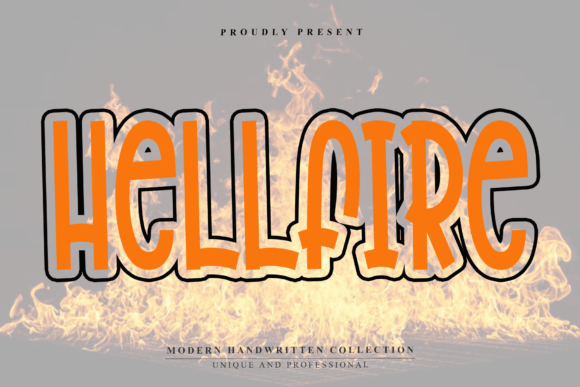
Hellfire: A Warm Font for Business Branding
Running a small business means paying attention to every detail that shapes how customers see your brand. For me, it started with a simple problem—my bakery’s packaging felt a little flat. The fonts I was using were too generic, and I wanted something that felt more personal, more like the warm, welcoming vibe we try to create in our shop. That’s when I discovered Hellfire.
Hellfire is a casual handwritten display font that radiates warmth and personality. Featuring smooth strokes, natural curves, and easy-flowing letterforms, it captures the charm of authentic handwriting. It’s not just a font—it’s a way to make your brand feel more human, more approachable, and more memorable.
Hellfire for Bakery Packaging and Product Labels
As a baker, I knew that first impressions matter. When someone opens a box or picks up a product, the typography on the packaging is one of the first things they notice. Hellfire transformed my bakery boxes. Instead of a stiff, impersonal look, I now have a font that feels like a friendly note from the owner. It adds character to my product labels, making them stand out on the shelf and giving customers a sense of what to expect from my brand.
Using Hellfire for product labels also helped me keep my branding consistent. Whether it’s a custom cookie tin or a seasonal treat, the same font appears across all my materials, creating a cohesive visual identity that customers recognize instantly.
Hellfire for Social Media Graphics and Online Shop Displays
As an online seller, I know how important it is to make my shop visually appealing. Hellfire has become my go-to font for social media graphics, especially for Instagram posts and promotional banners. Its flowing style makes headlines pop, while still maintaining a soft, inviting feel that matches my brand’s tone.
I also use Hellfire for my website banners and digital ads. It adds a personal touch without being overwhelming. On mobile screens, where space is limited, Hellfire still reads clearly and maintains its charm, which is essential for attracting attention in a fast-paced digital world.
Hellfire for Café Menus and Service Branding
When I redesigned my café’s menu, I wanted something that felt as comforting as the coffee we serve. Hellfire fit perfectly. It gives the menu a handcrafted feel that aligns with the cozy atmosphere of the café. The font works well for headings, but I also use it for smaller text like descriptions and pricing, ensuring readability without sacrificing style.
Hellfire isn’t just for big headlines. It adds a subtle yet meaningful touch to service branding, such as signage, staff name tags, and even customer thank-you notes. It helps reinforce the idea that every interaction with my business is thoughtful and intentional.
Hellfire for Handmade Product Packaging and Boutique Tags
If you run a boutique or sell handmade items, you know how much packaging can impact the customer experience. Hellfire brings a unique flair to product tags and packaging inserts. It feels like a personal message from the creator, which is exactly what I want for my handmade jewelry line.
The font’s natural curves and fluidity make it ideal for short phrases, like “Handmade with Love” or “Designed for You.” It pairs well with clean, modern fonts for contrast, helping to balance the design without clashing. This versatility makes Hellfire a valuable addition to any designer’s toolkit.
Hellfire for Brand Identity and Consistent Visuals
Consistency is key when building a brand. Hellfire has helped me maintain a unified look across all my materials, from business cards to email newsletters. It’s not just about aesthetics—it’s about creating a visual language that resonates with customers and builds trust.
When I first started using Hellfire, I worried it might be too casual for a professional setting. But I quickly realized that its warmth and personality actually enhance the professionalism of my brand. It shows that I care about details and that my business has a distinct identity.
Hellfire for Digital Ads and Marketing Materials
For digital ads, Hellfire stands out without being distracting. It’s perfect for headlines and call-to-action buttons, drawing attention while keeping the overall design clean. I’ve used it in Facebook and Instagram ad creatives, and the results have been impressive—higher engagement and a stronger brand presence.
On printed marketing materials like flyers and brochures, Hellfire adds a human element that makes the message feel more genuine. It’s not just a font—it’s a tool for storytelling, helping to convey the heart behind my business.
Hellfire for Logo Design and Display Text
While Hellfire isn’t typically used for full logos, it works beautifully as a secondary font or decorative element. I’ve used it in combination with a bold sans serif for my logo, creating a balanced look that’s both modern and approachable.